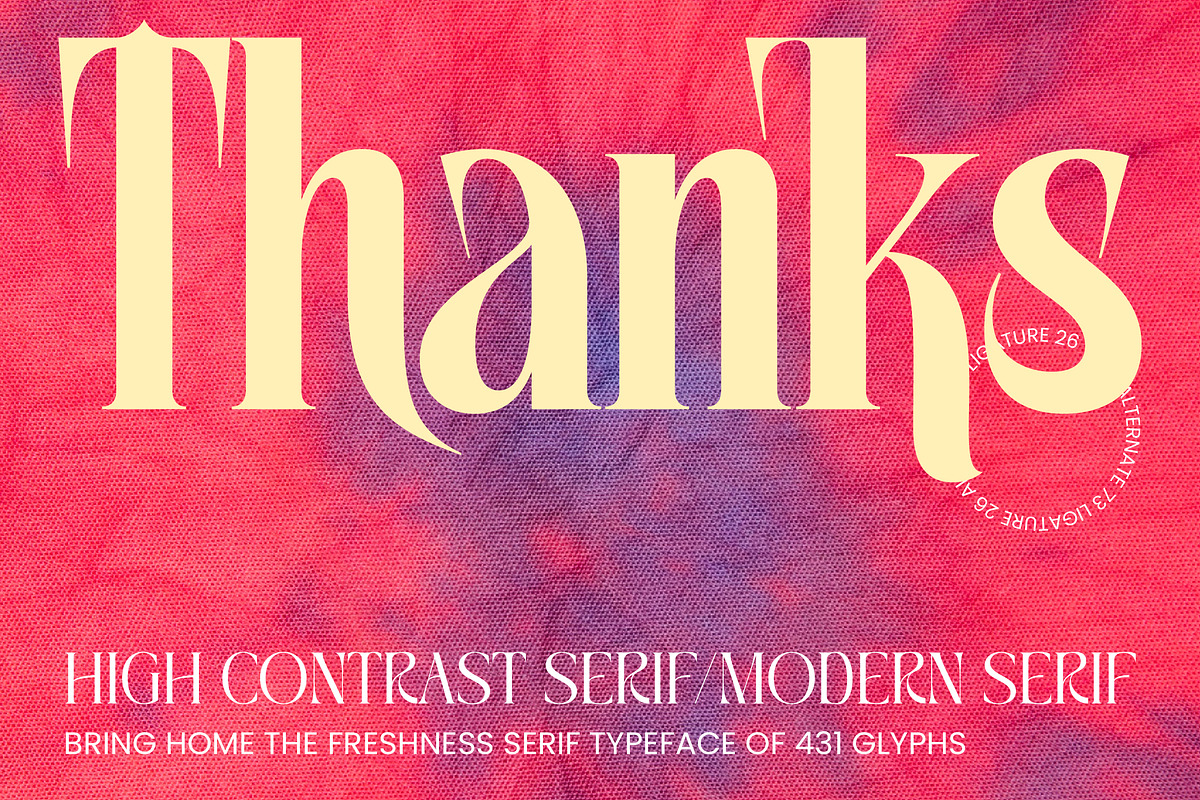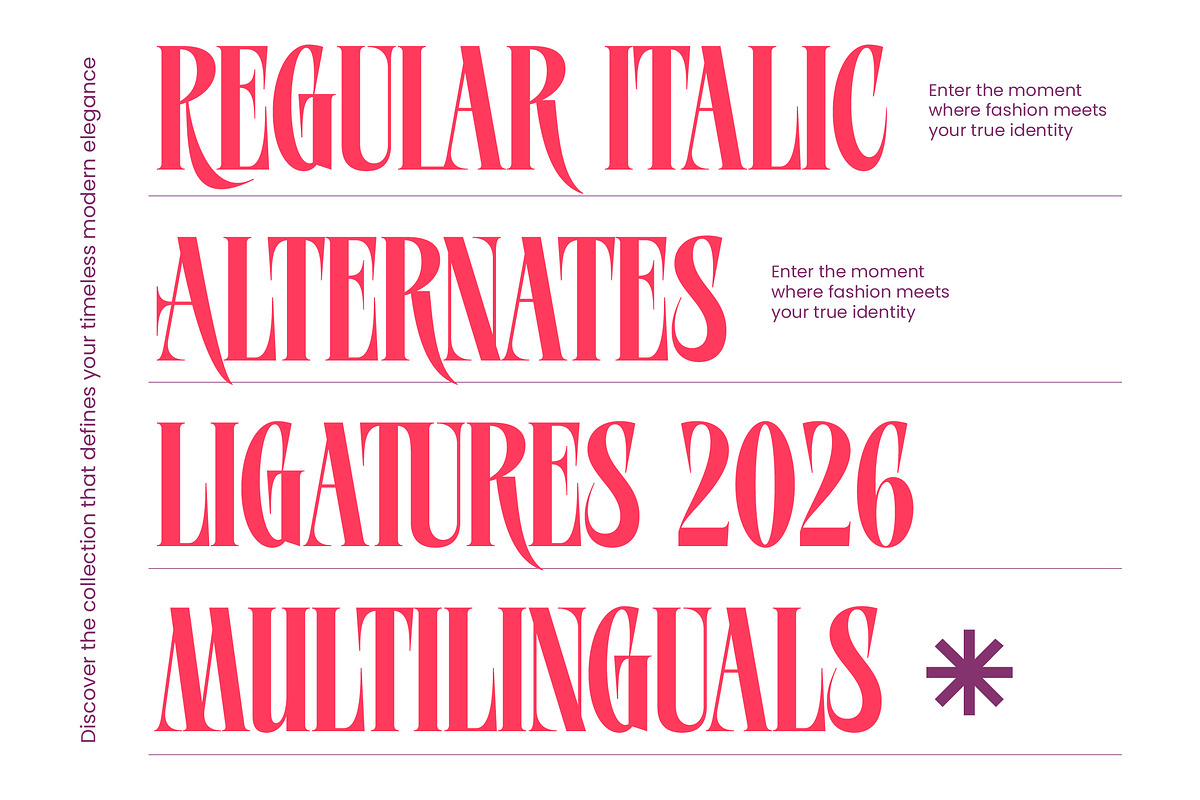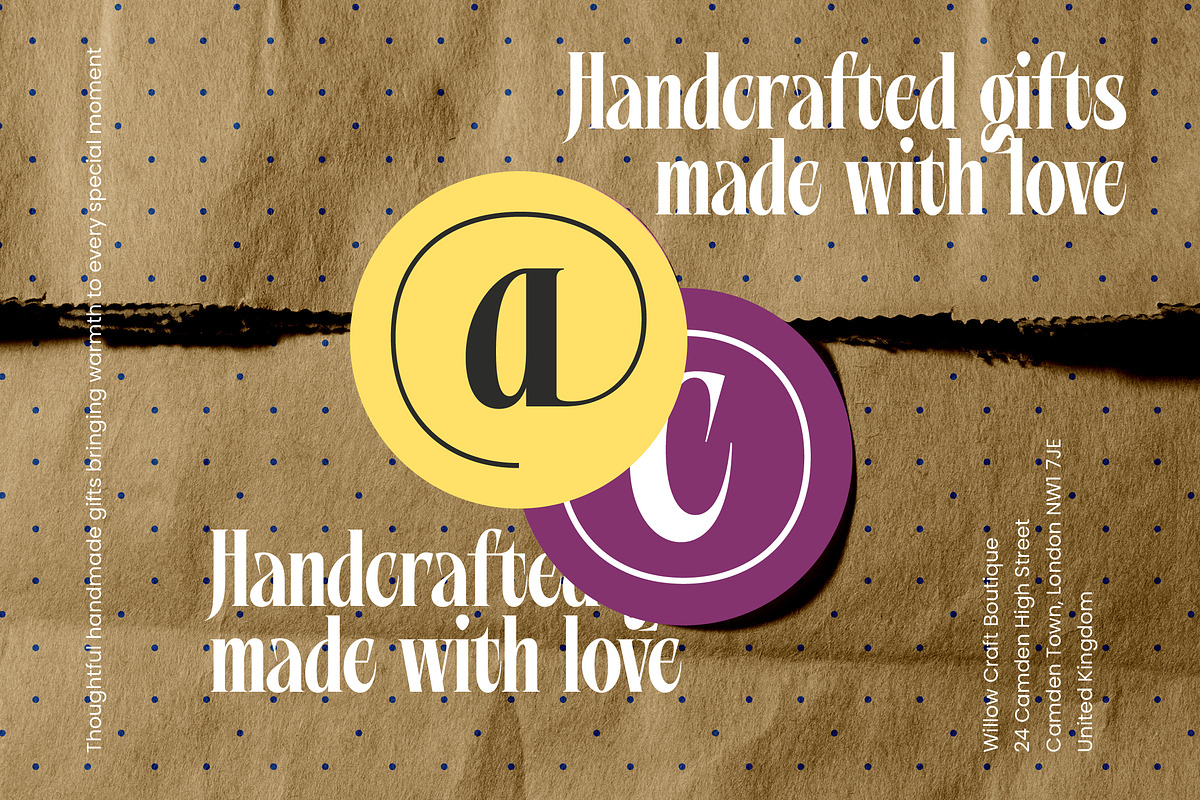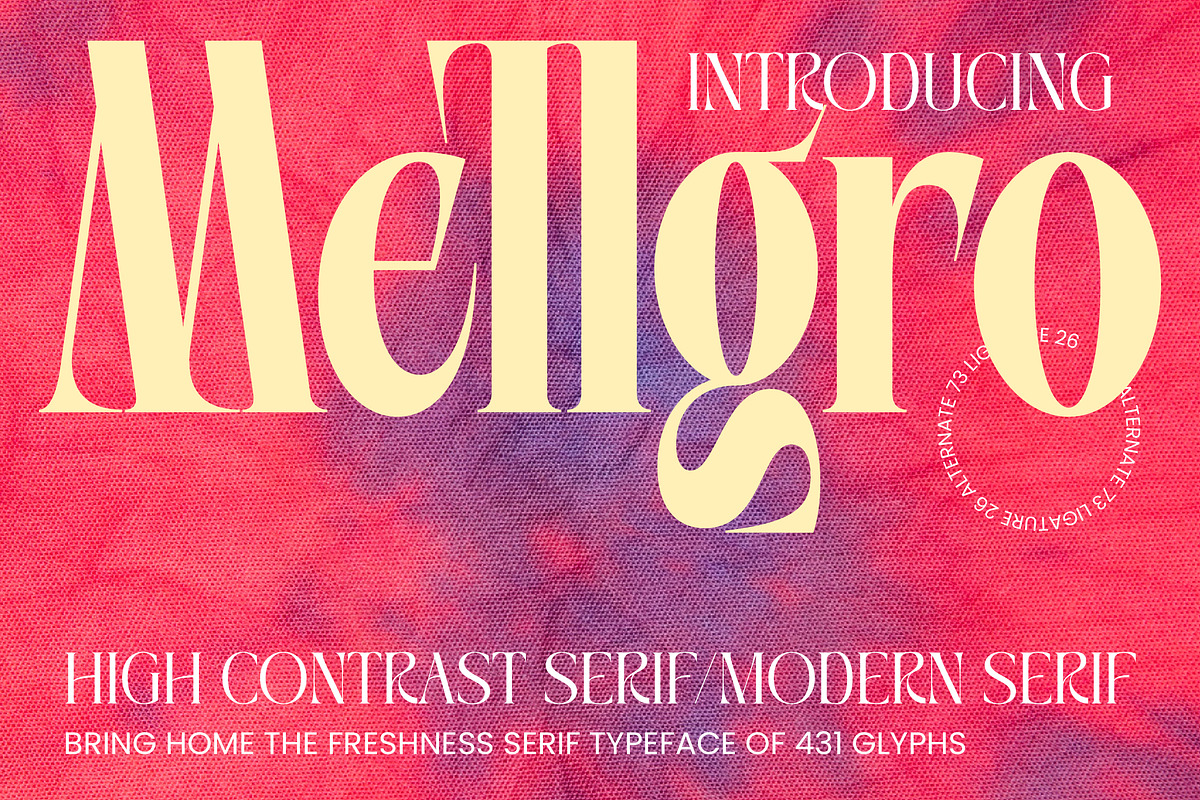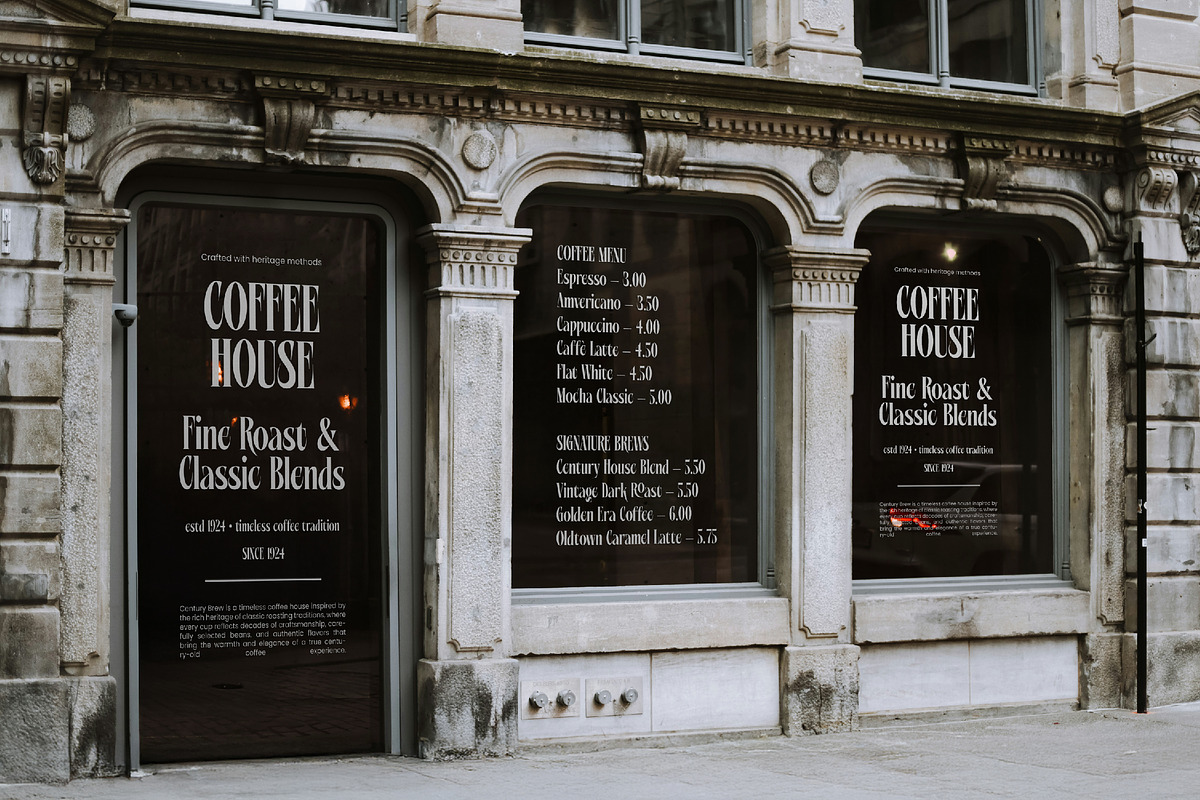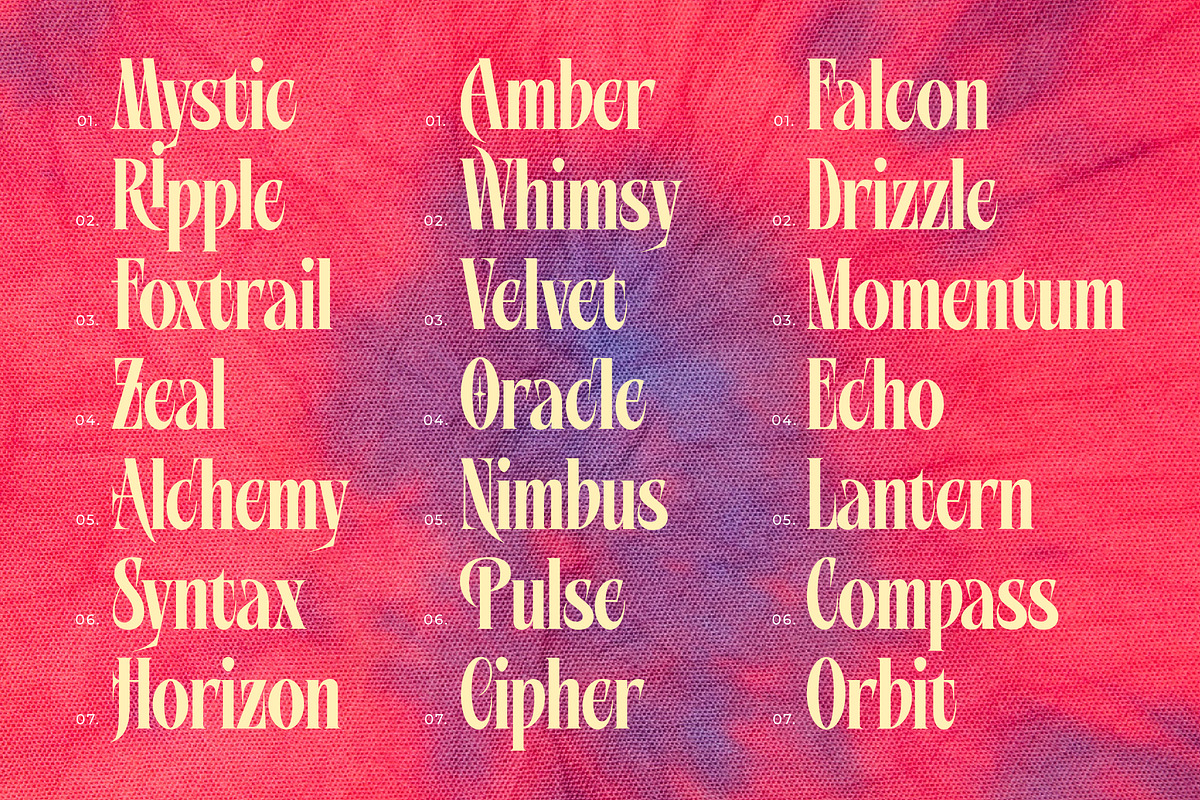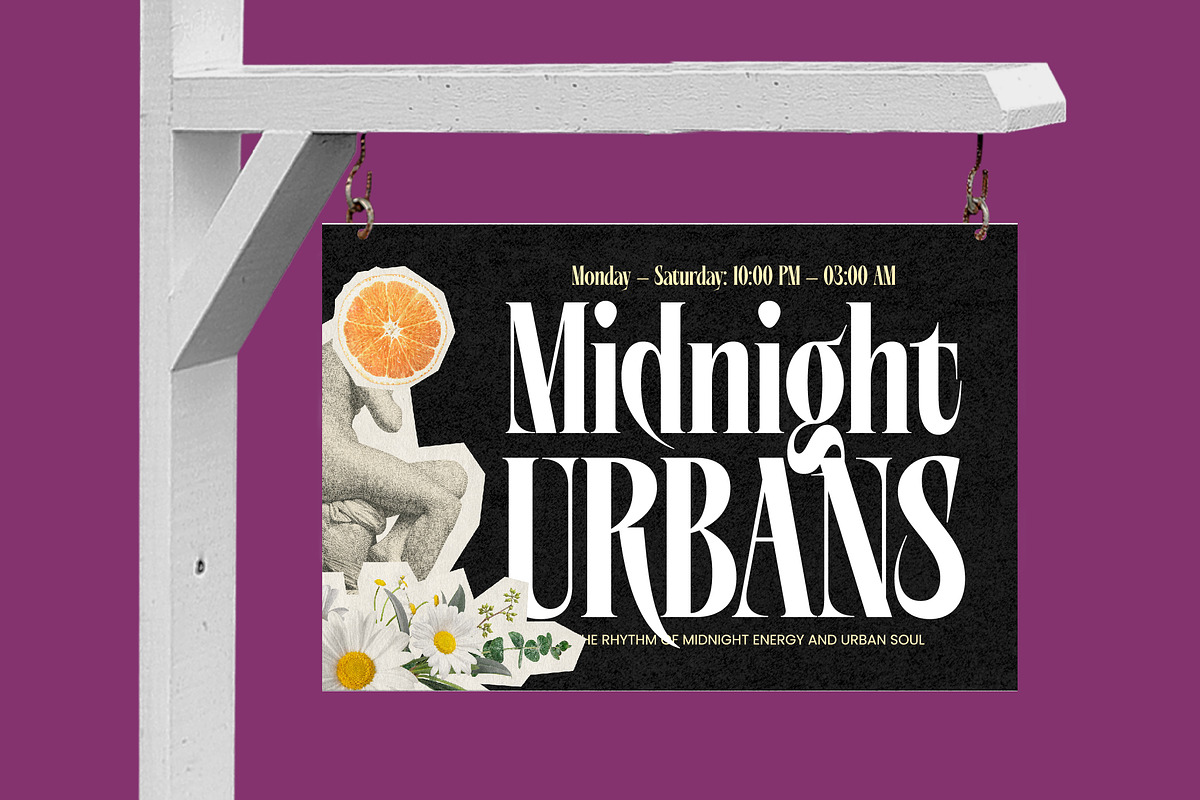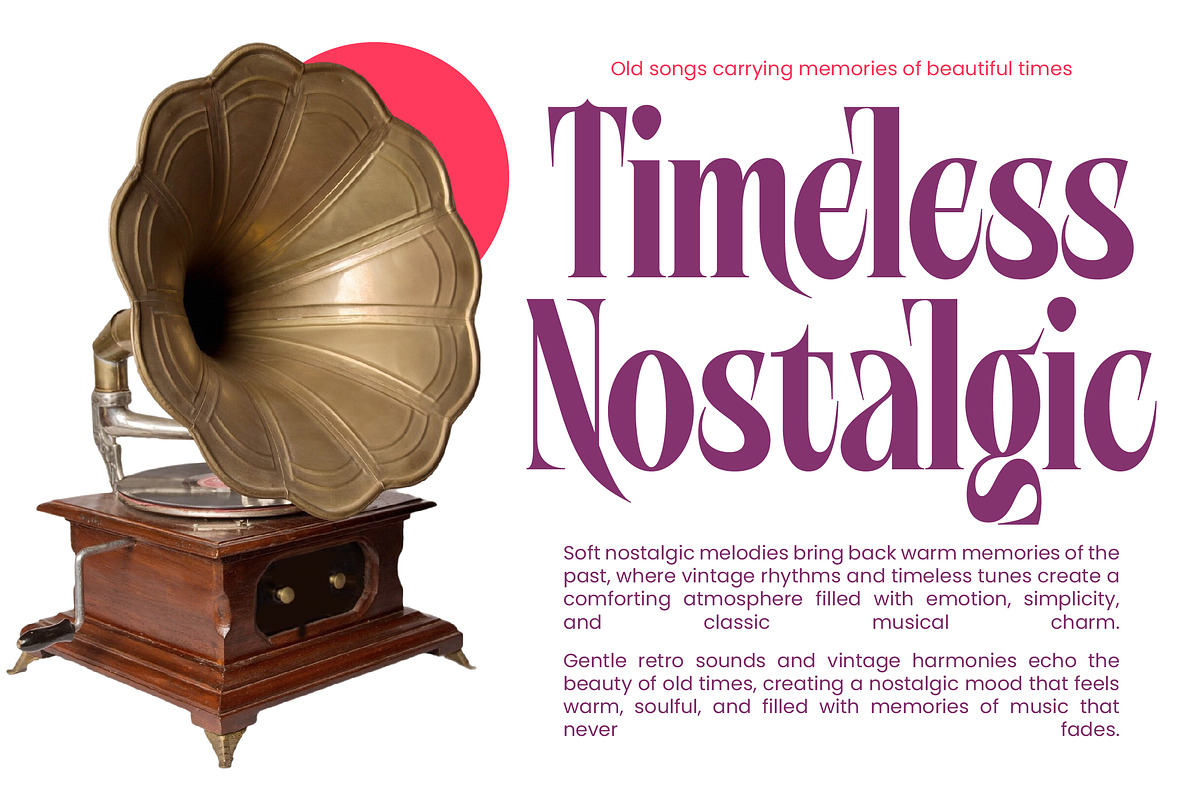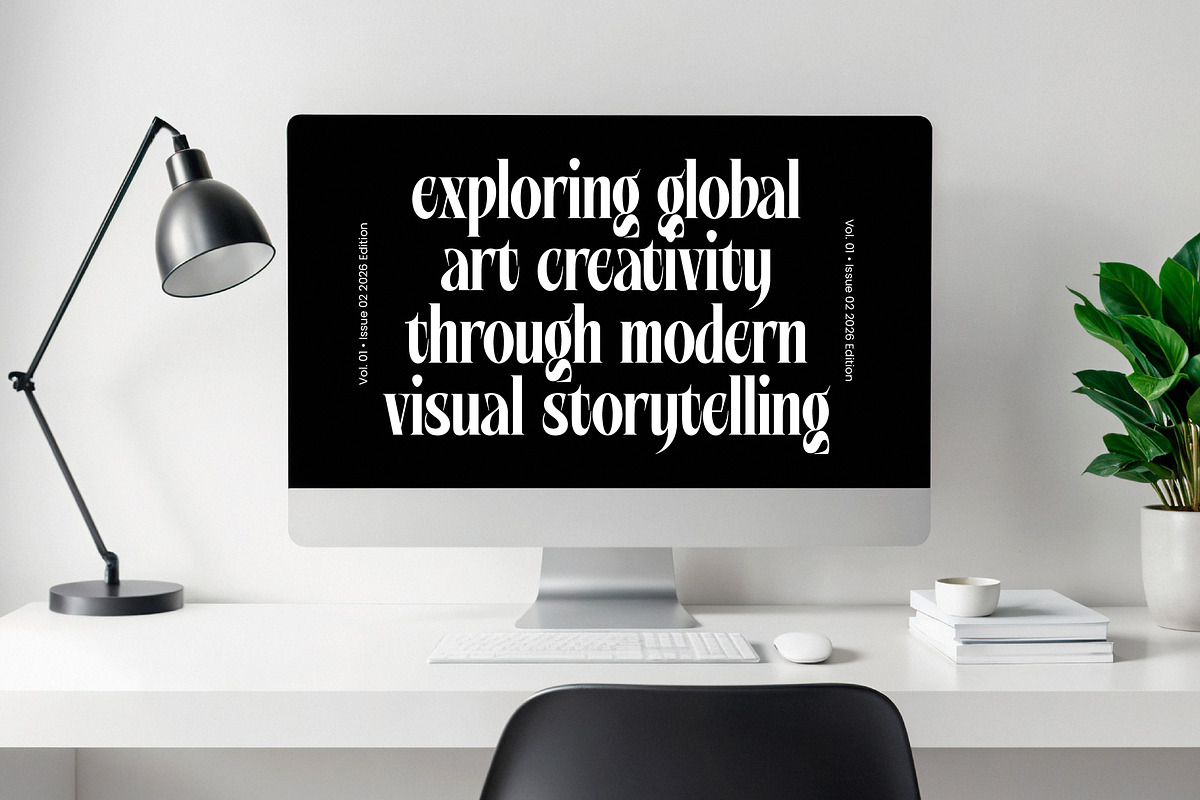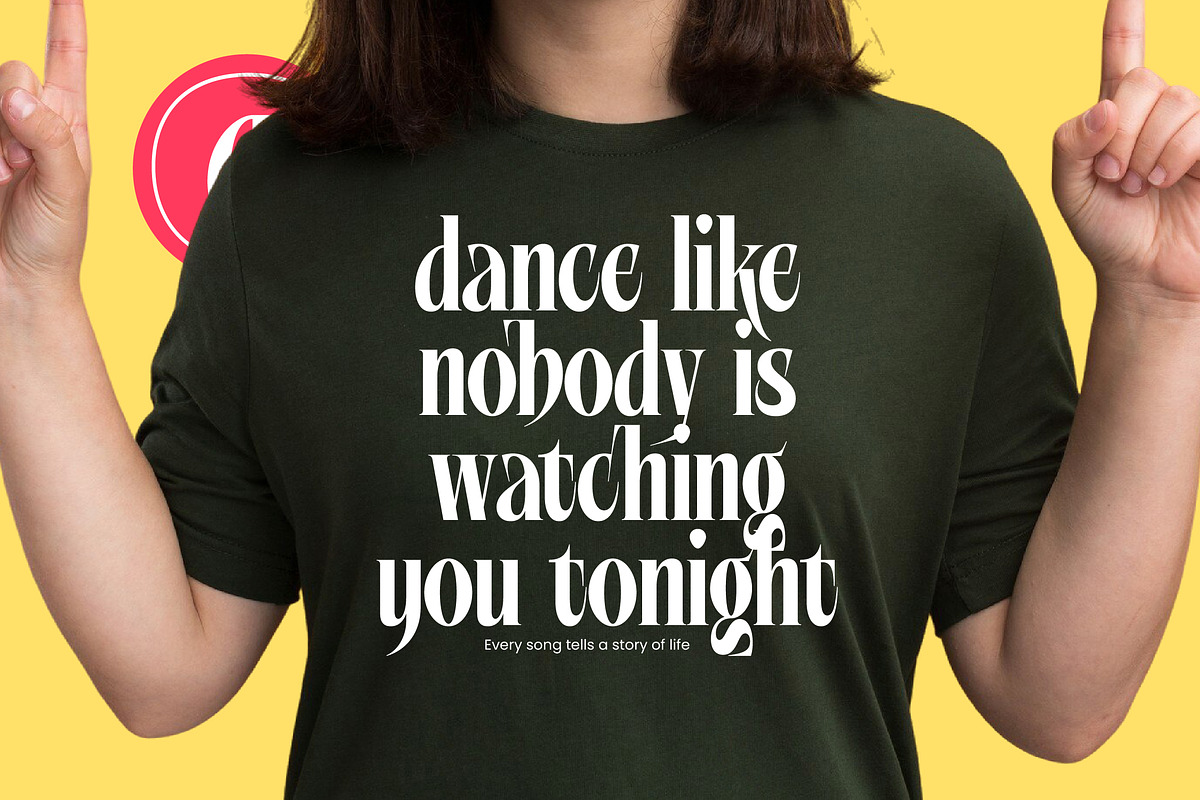
Mellgro High Contrast Modern Serif
Mellgro – High Contrast Modern Serif , Elevate your design projects with a touch of timeless sophistication and unparalleled class. Mellgro – High Contrast Modern Serif is a masterpiece of contemporary typography that seamlessly blends traditional grace with a cutting-edge aesthetic. Characterized by its striking high-contrast strokes and sharp serifs, this typeface is engineered to demand attention while maintaining a sense of refined elegance. It is the ultimate choice for designers who refuse to settle for the ordinary, offering a premium feel that resonates with modern audiences.
Experience the perfect balance of classic charm and modern edge in every character. Mellgro – High Contrast Modern Serif provides a bold visual impact through its meticulously crafted 431 glyphs, including a diverse range of ligatures and alternates. This comprehensive feature set allows for endless creative possibilities, ensuring that your visual identity remains unique and memorable. By prioritizing legibility and style, this typeface serves as a versatile cornerstone for any high-profile creative toolkit.
Transform your brand into a symbol of prestige and high-end fashion with ease. Mellgro – High Contrast Modern Serif is perfect for luxury branding, editorial design, and high-end packaging, where a sophisticated presence is non-negotiable. Its dramatic flair and polished finish make it ideal for magazine layouts, logo design, and premium advertising campaigns. Whether used for sprawling headlines or subtle accents, this font elevates the perceived value of any product it represents.
Reach a wider audience without compromising on style or consistency across various platforms. With its extensive multilingual support, Mellgro – High Contrast Modern Serif adapts seamlessly across global markets, making it incredibly versatile for international projects. This global compatibility ensures that your brand’s voice remains strong and unified, regardless of the geographic region. Invest in Mellgro – High Contrast Modern Serif to secure a timeless, world-class typographic foundation for your next big venture.